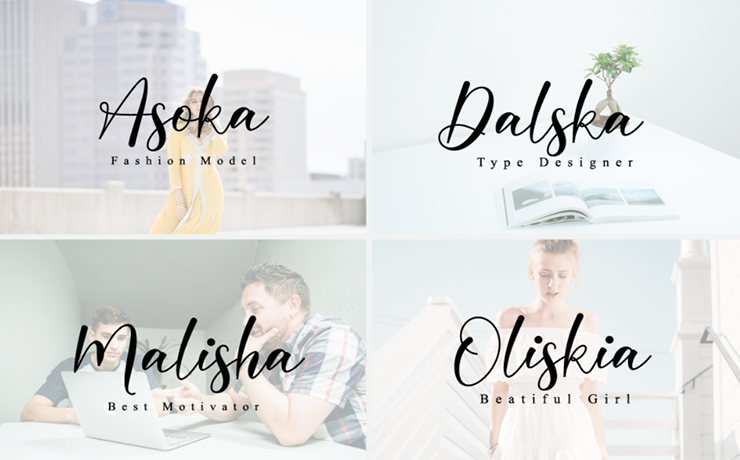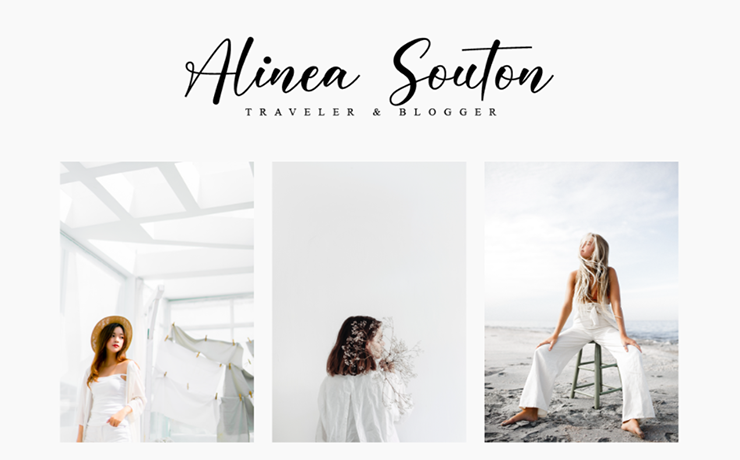
Make it a fun experience with modern calligraphy typeface like Kinsley Script Font. This stunning font features a pleasing script design with beautiful swashes and animated characters.
This amazing display typeface was created by Nissa Studio, that is a Lettering Artist from Indonesia.
This excellent font family has presented an impressive and pure expression. Therefore, it can easily work for any unique and stylish project.
You could say that the designer font makes a point to deliver the best and best typing fee in the market. As such, it has many features such as the most attractive look, and easy to read.
Style: | Modern, Calligraphy, Handwritting |
Plus, it will turn any design project into a standout!
Try it out for invitations, posters, restaurant menus, letterhead, logos, stationery, magazines, books, greeting/wedding cards, packaging, labels, or any other advertising purpose.